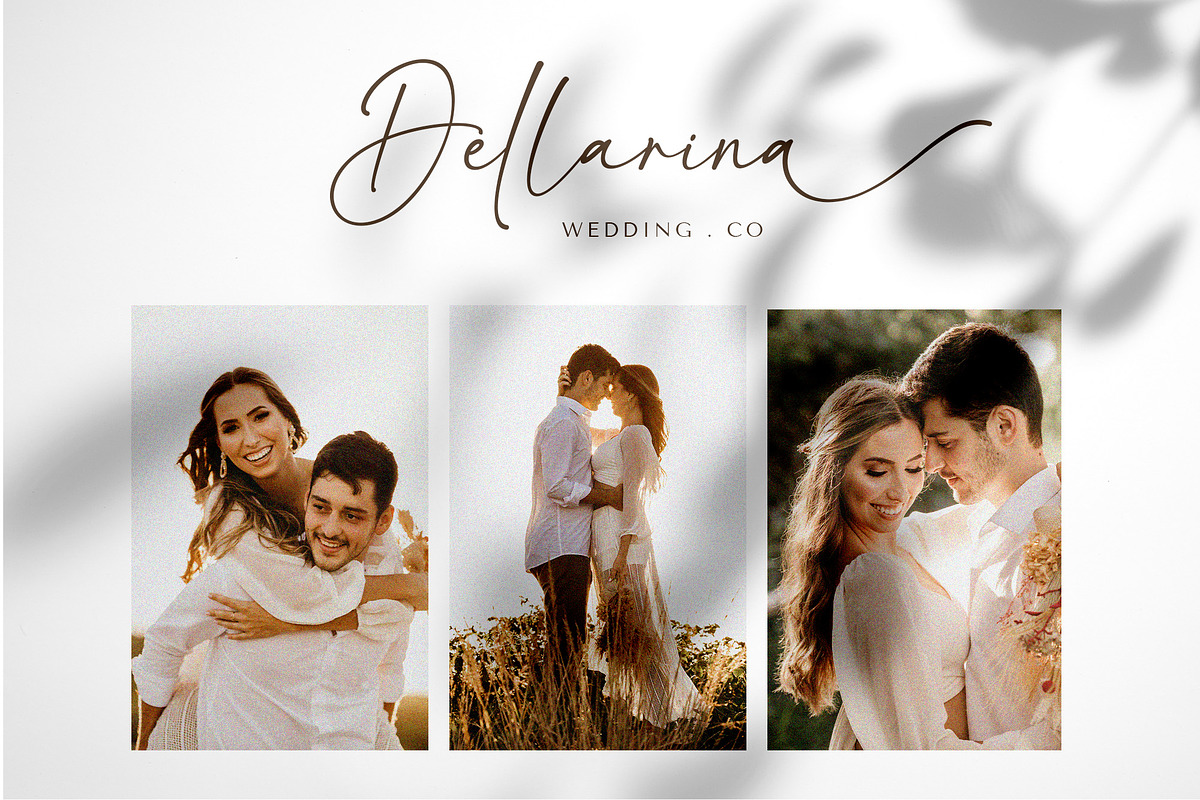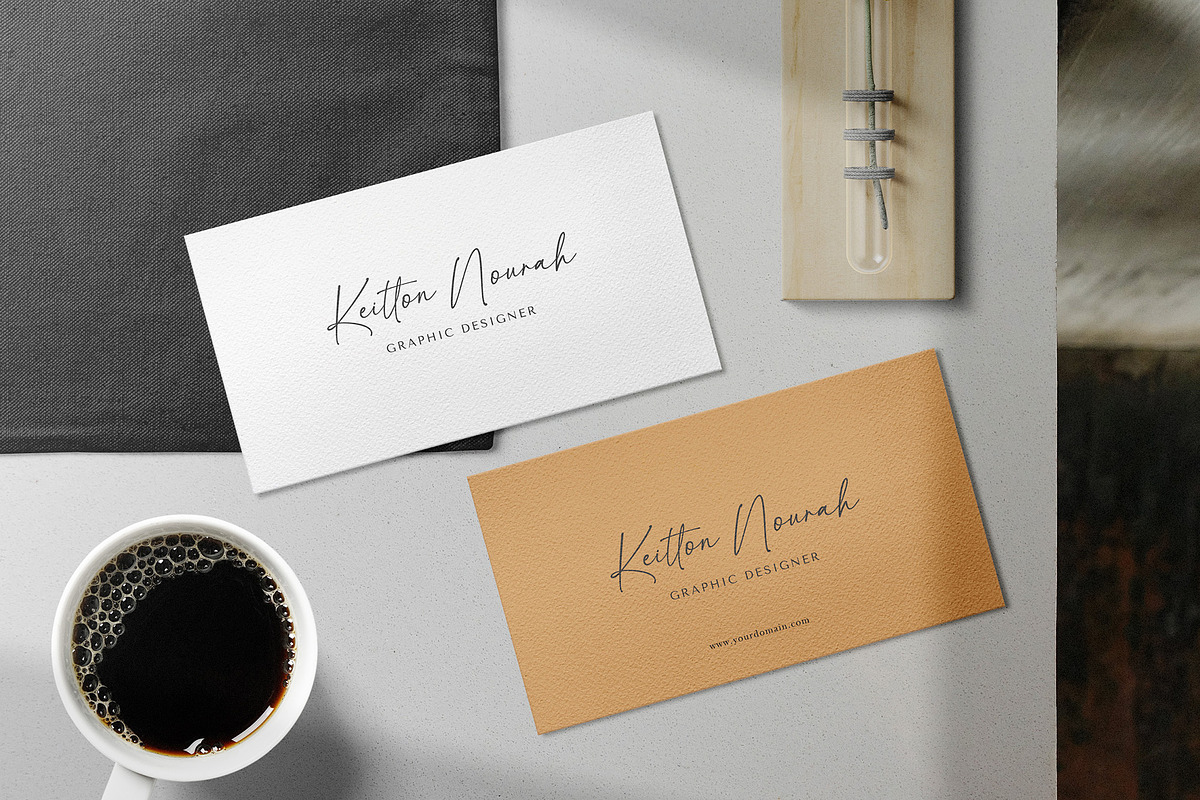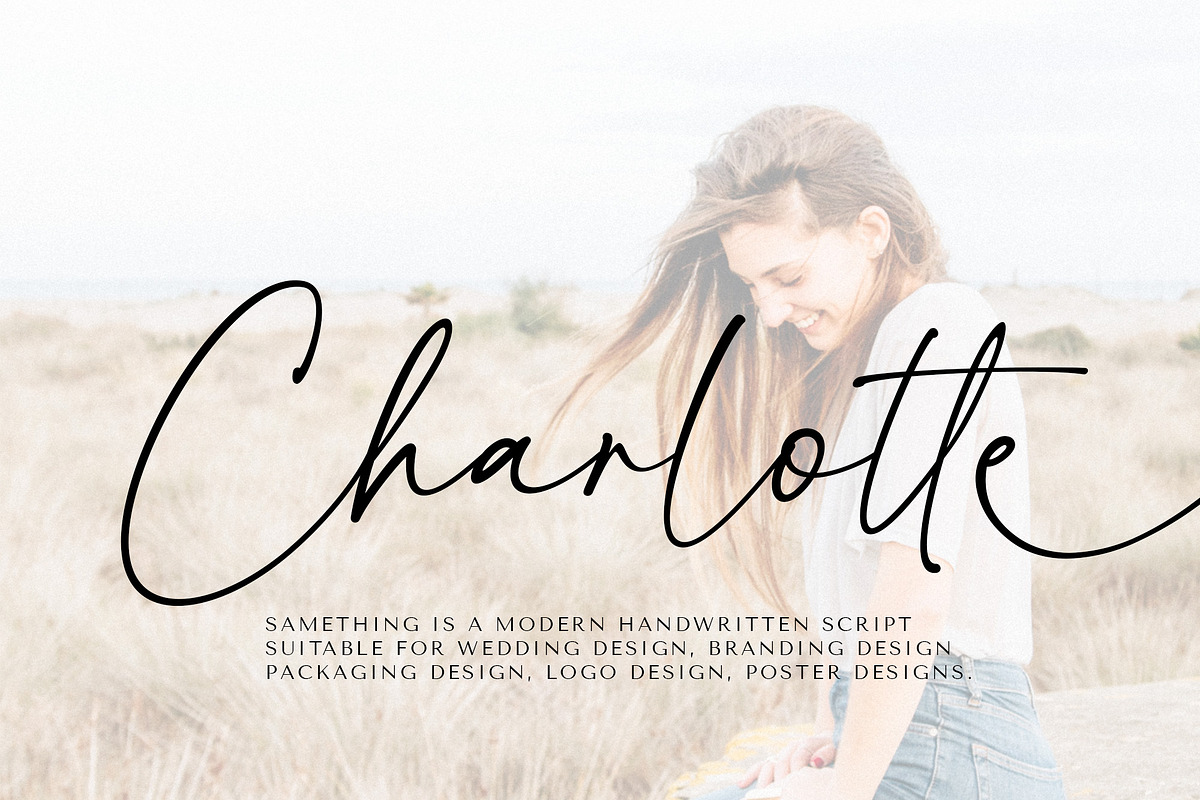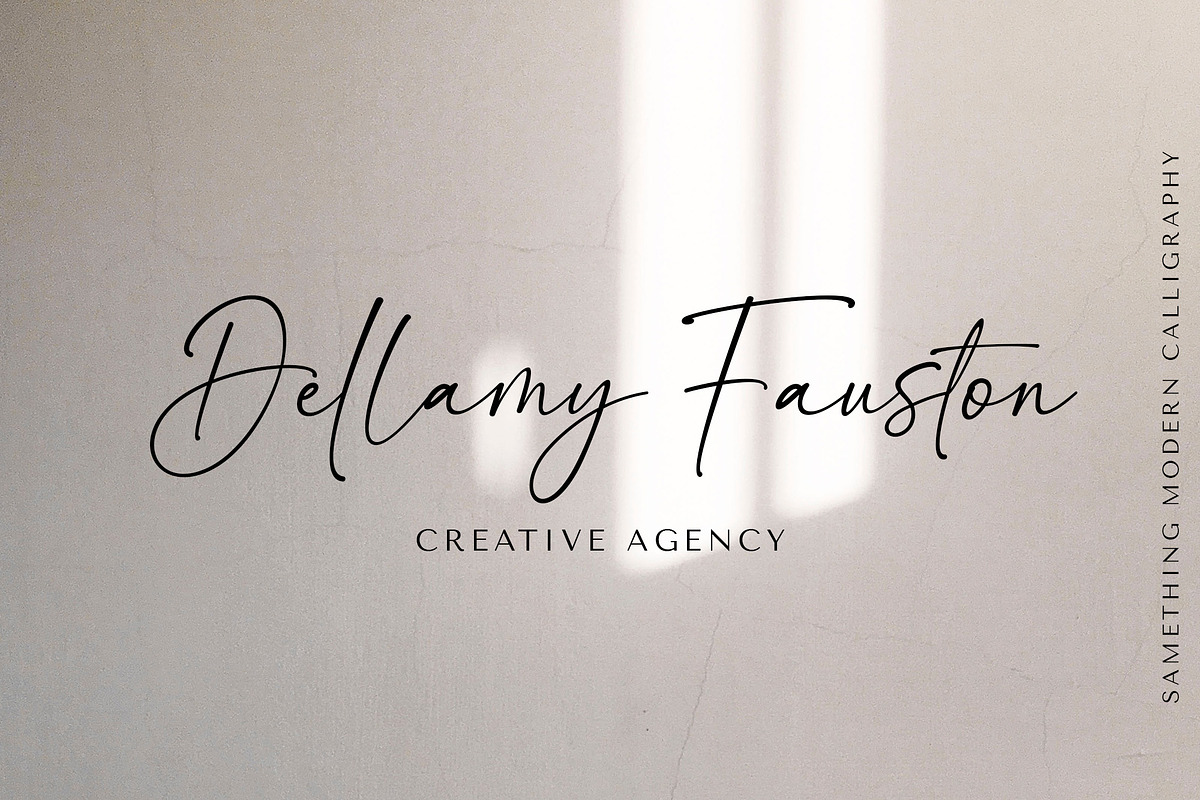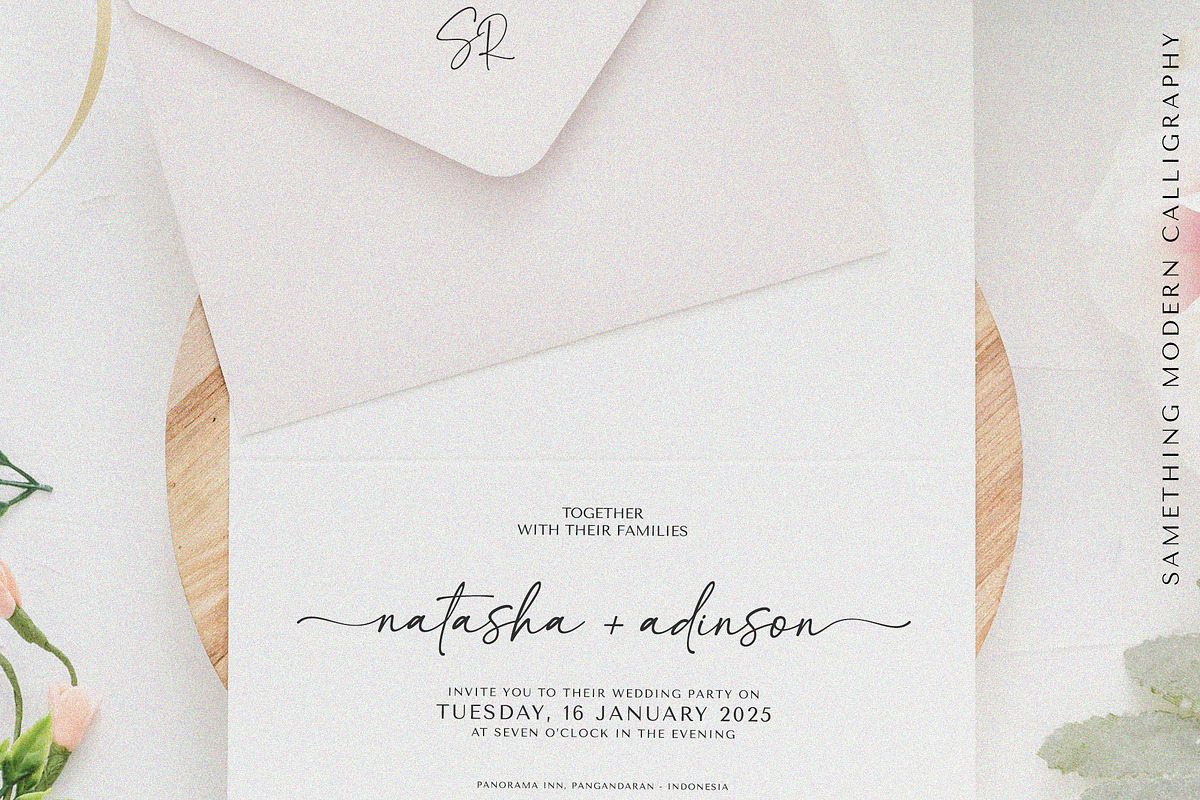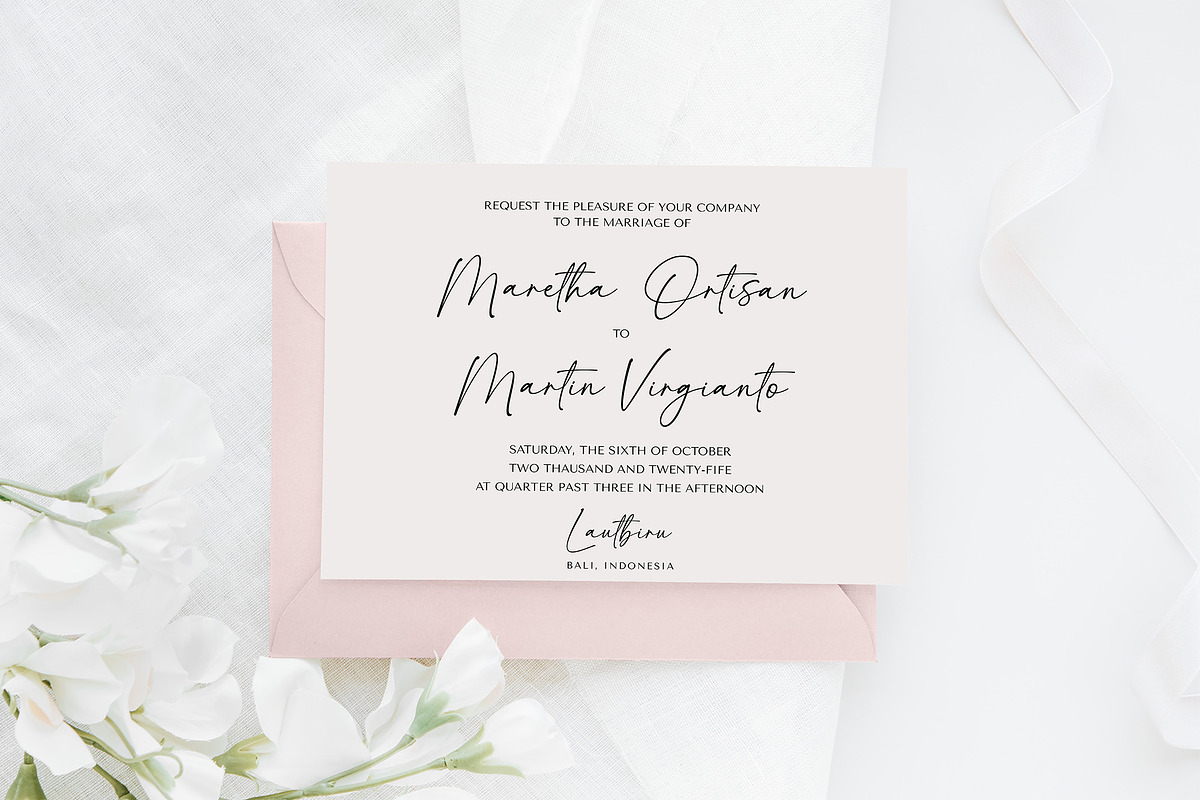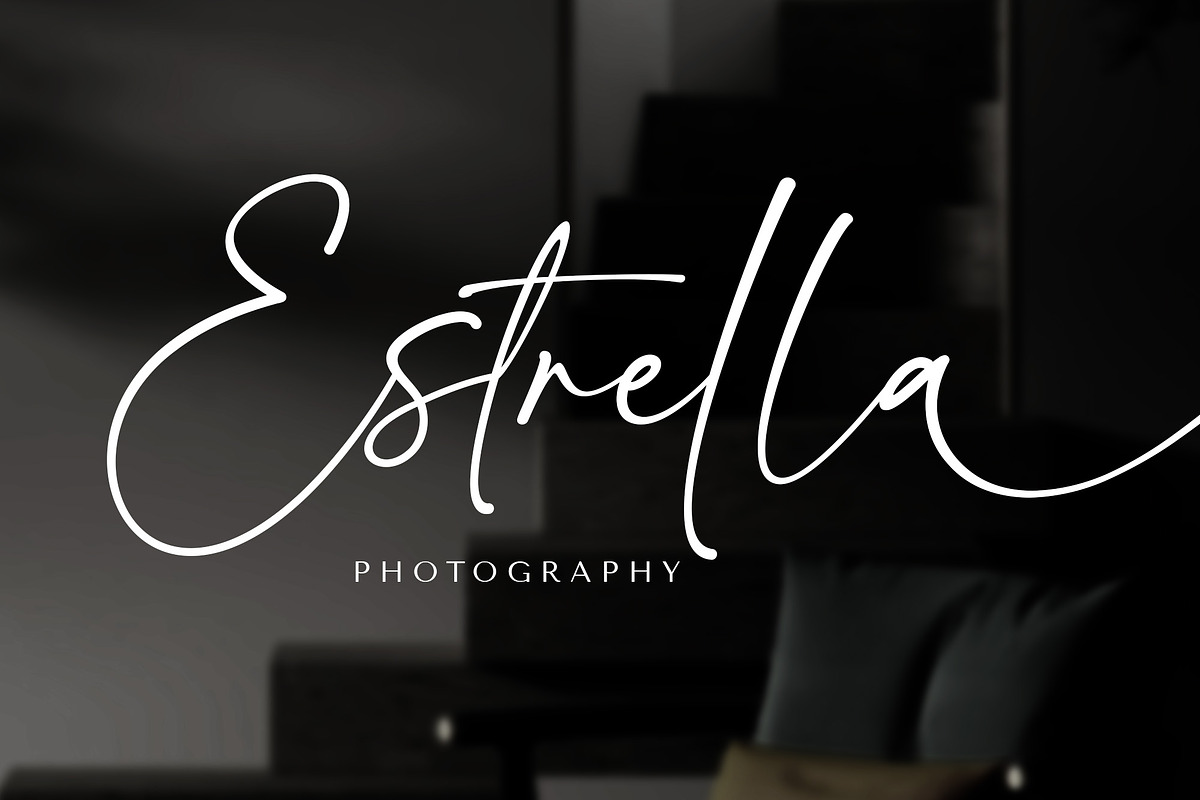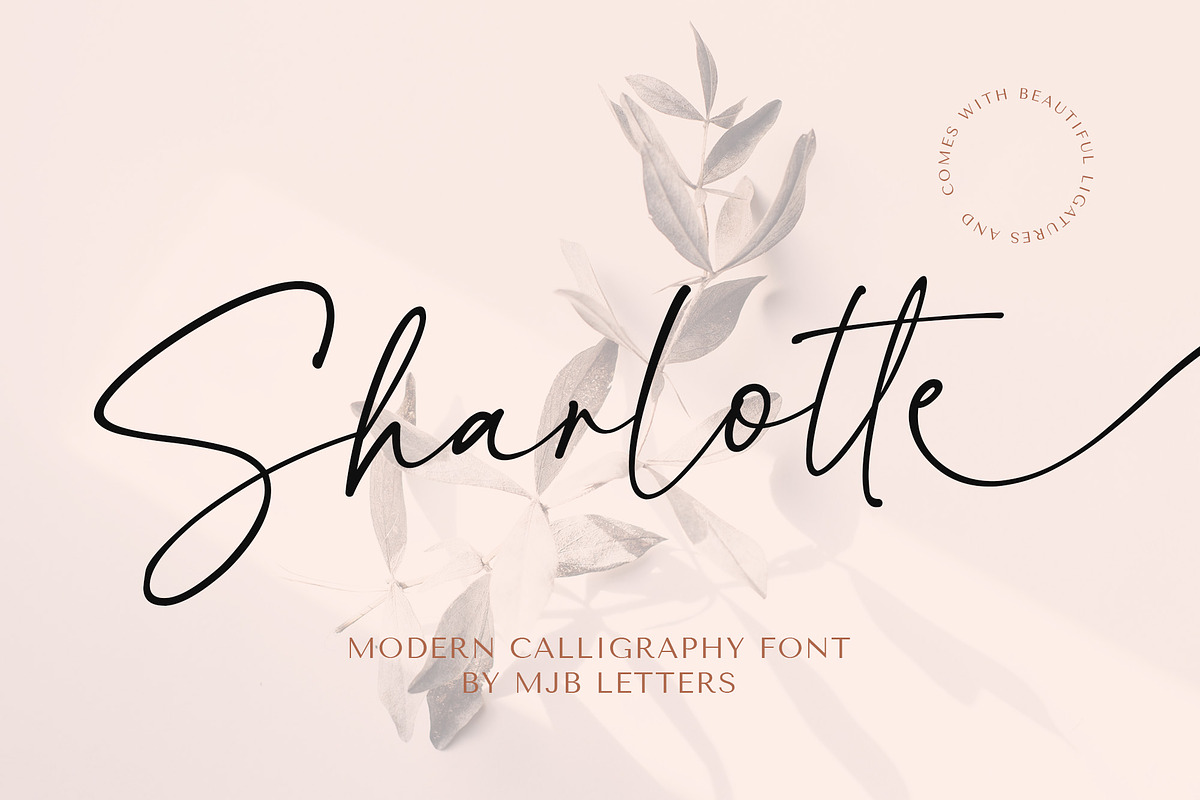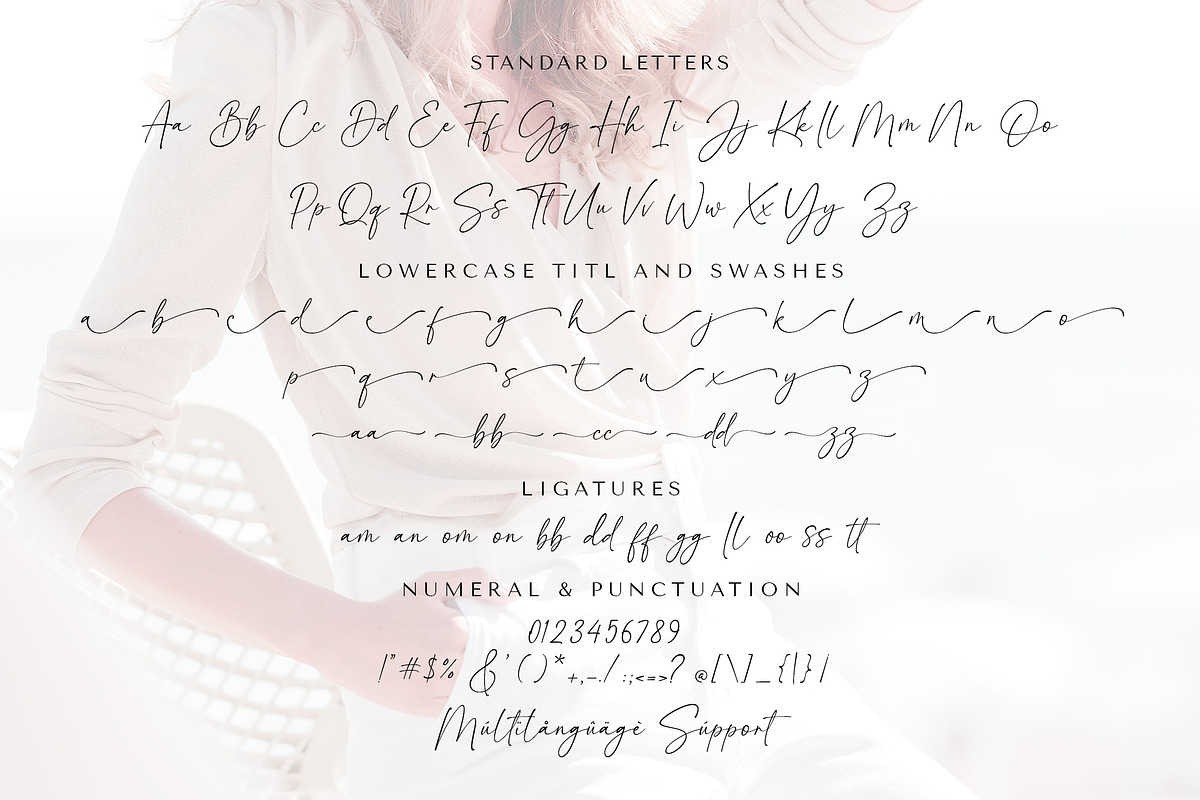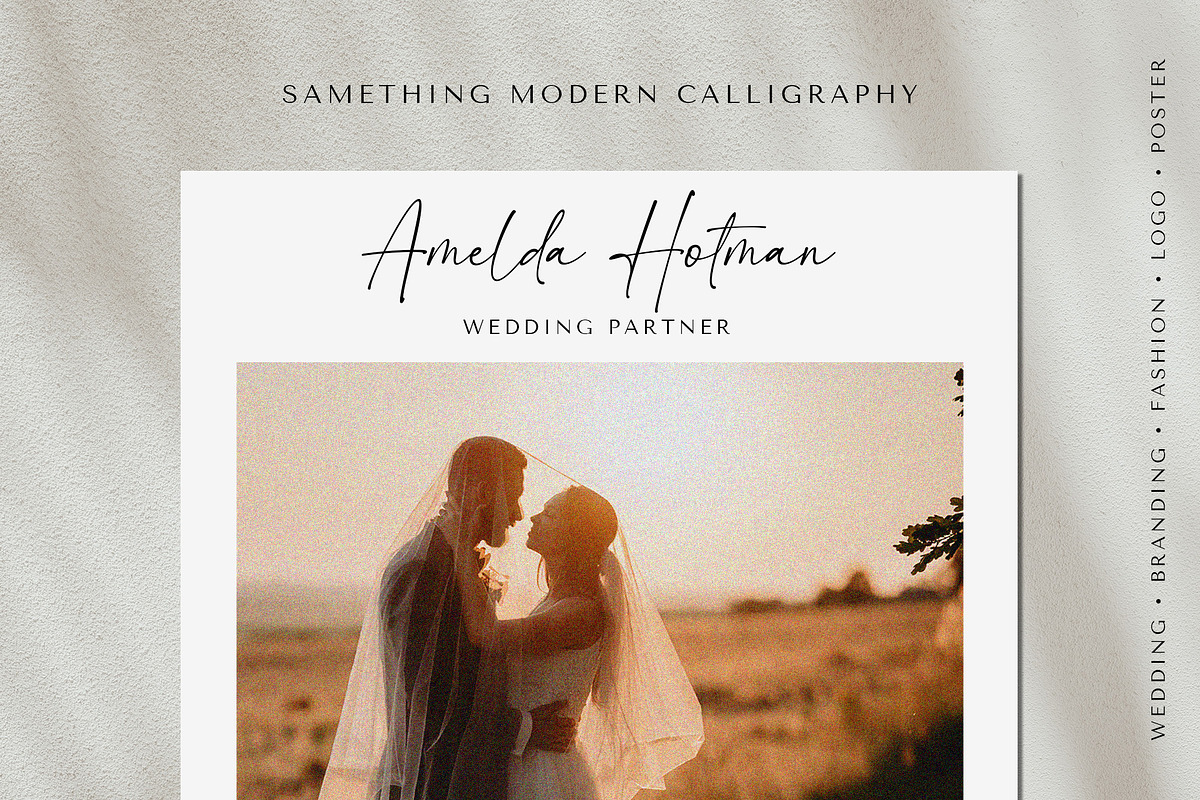
Sharlotte - Chic Calligraphy
Sharlotte is a modern calligraphy that has a natural handwritten touch, this font has a strong character in each glyph and is very suitable for branding design, logo design, packaging design, wedding invitation design, poster design, business card design, and anything that needs a handwritten look.